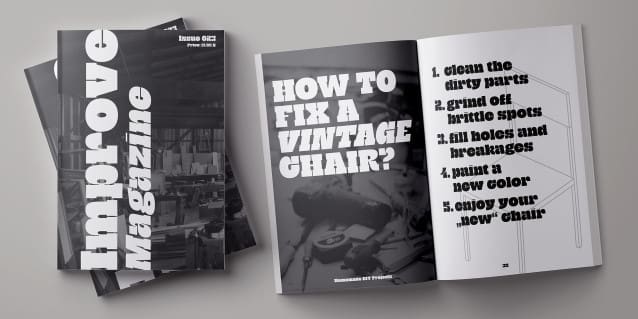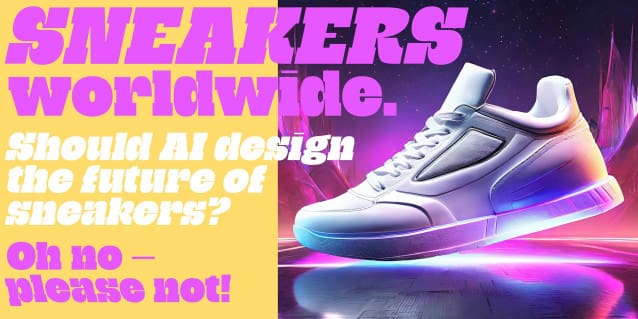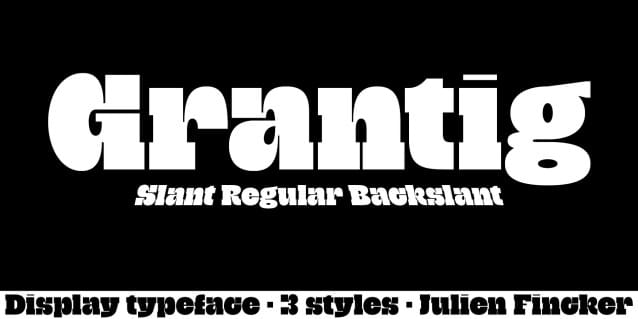
Grantig Font
Grantig Font is a bold serif display typeface. Inspired by the opening titles of old western movies, the genre of western slab serifs has been translated into a modern context and adapted to today’s needs. As a result, it breaks free from the chains of its genre and opens up to many themes.
Grantig Font is the german word for grumpy. With its massive serifs and strictly rounded curves, it comes particularly close in character to the grumpy Western heroes of days gone by, always in the presence of his two leaning companions, Slant and Backslant.
With Grantig, it is particularly easy to create eye-catching and type-accentuated headlines. Its expressive nature makes it particularly suitable for editorial, packaging and advertising.
With its 482 characters, Grantig covers the language usage for many Latin-based languages. At the same time, it has the most important open type features, such as lining and oldstyle figures, alternate characters, and arrows.